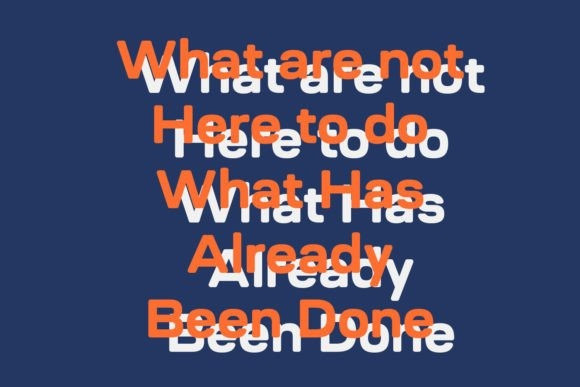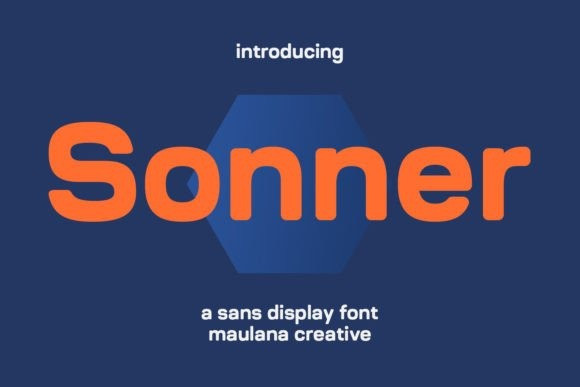
Sonner Font
Sonner Sans Serif Font is a modern and stylish sans display font. Contemporary and fresh, this font is suitable for a wide spectrum of applications.